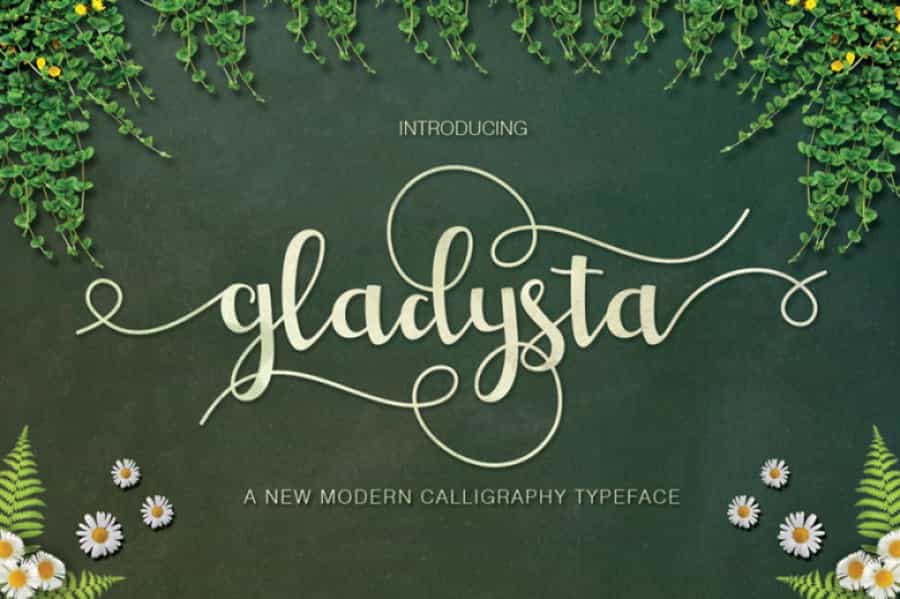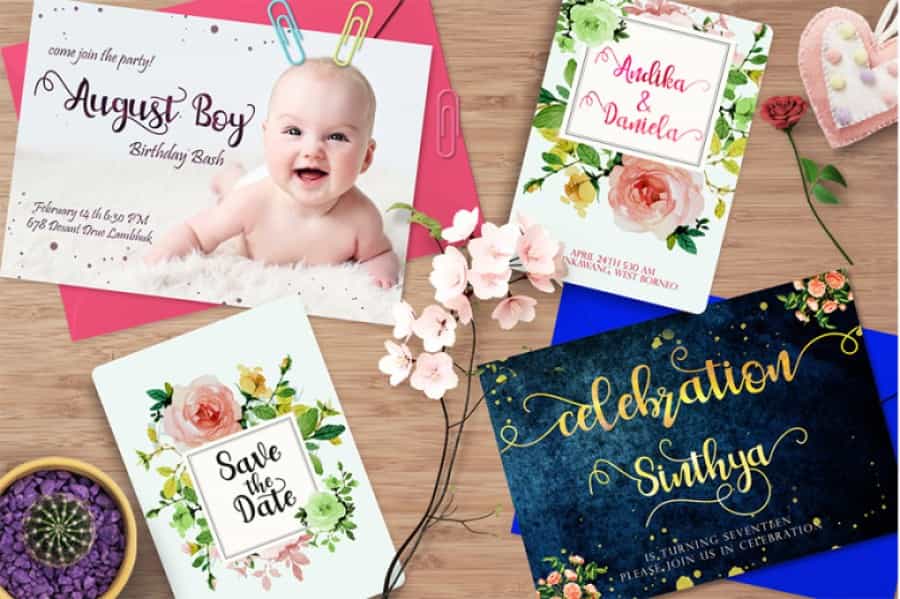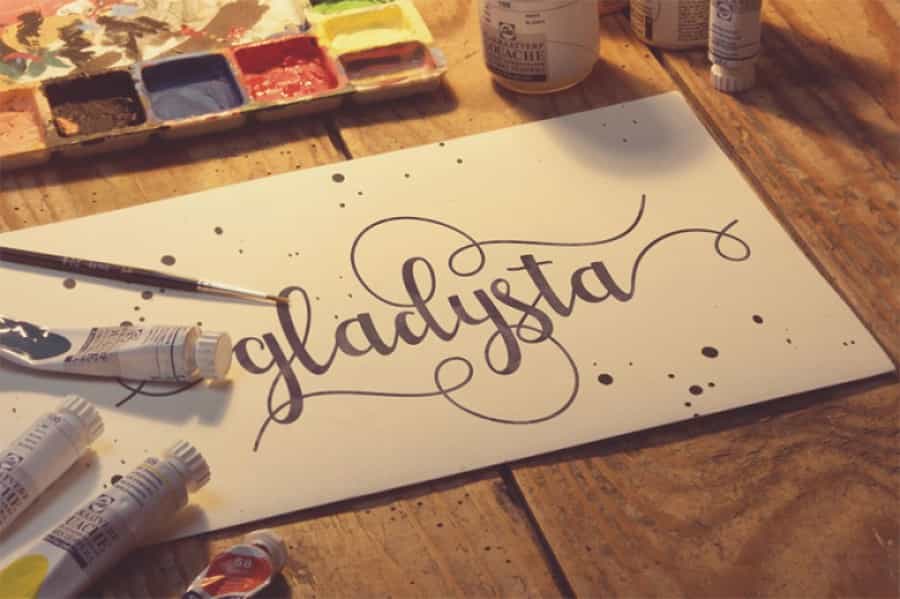
Gladysta Script is a fresh, a modern calligraphy font, beautiful and dancing base line for your arts and designs. This font was the blend of brush lettering and hand writing simple style. it is good to be used in creating Icon for personal branding, business cards, stamps, quote posters, and greeting cards. Yes, another season that many brides and grooms-to-be look forward to; wedding season. This is elegant font to use in your design projects.